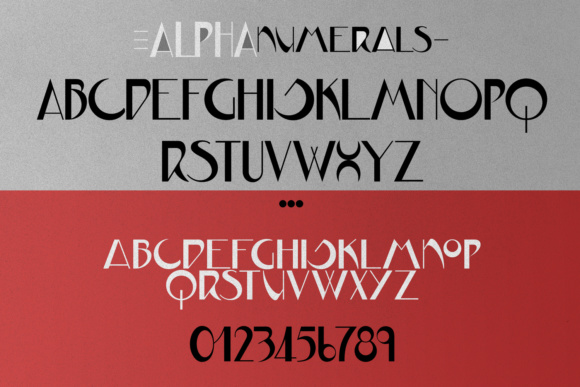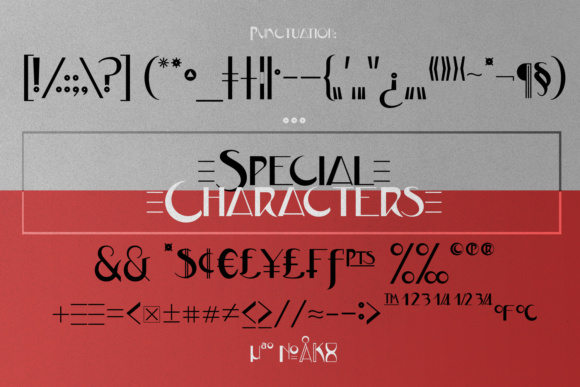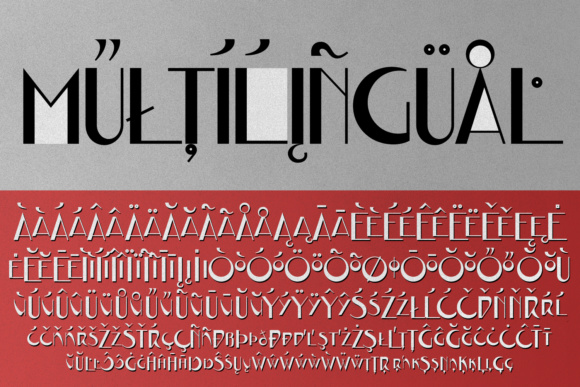
Introduction to JVNE CoalWorks Font
As designers, we’ve all been there – staring at a blank canvas, searching for the perfect font to bring our creative vision to life. It’s that moment of inspiration, when the right font can elevate an entire design and make it truly unforgettable. For many of us, that moment came in 1982 with the release of a iconic 12-inch single titling font, which has since become a personal favorite.
Now, thanks to the talented designers at JVNE CoalWorks Font, we can relive that moment of inspiration with a beautifully crafted, high-quality font that’s available for free download. This stunning typeface is not only a design resource for creatives, but also a testament to the power of great typography in elevating a design project. With its transparent background and extensive character set, including central and western Latin languages, JVNE CoalWorks Font is the perfect addition to any creative project.
Key Features of JVNE CoalWorks Font
- High-quality design resource with a unique, industrial aesthetic, perfect for creative projects.
- Features a clean and modern design, ideal for use in logos, branding, and packaging design.
- Available in a single weight, making it easy to use in a variety of design contexts.
Honest Review: JVNE CoalWorks Font
I recently stumbled upon the JVNE CoalWorks Font and was impressed with its high quality and versatility. This design resource is perfect for anyone looking to add a touch of industrial chic to their creative project.
One of the standout features of this font is its transparent background, which makes it easy to use on both light and dark backgrounds. The font itself is clean and modern, with a unique aesthetic that sets it apart from more traditional font options.
- High-quality design with a unique aesthetic
- Transparent background for easy use on various backgrounds
- The font may not be suitable for all types of creative projects, particularly those requiring a more playful or whimsical tone
Overall, I’m impressed with the JVNE CoalWorks Font and would highly recommend it to designers looking for a high-quality, industrial-inspired font for their next creative project.
The JVNE CoalWorks Font is a high-quality design resource ideal for creative projects that require a unique and modern touch. This free download offers a transparent background, making it easy to customize and integrate into your design.
Common Use Cases for JVNE CoalWorks Font
The JVNE CoalWorks Font is ideal for a variety of creative projects, including:
Brand logos and identities
Marketing materials and